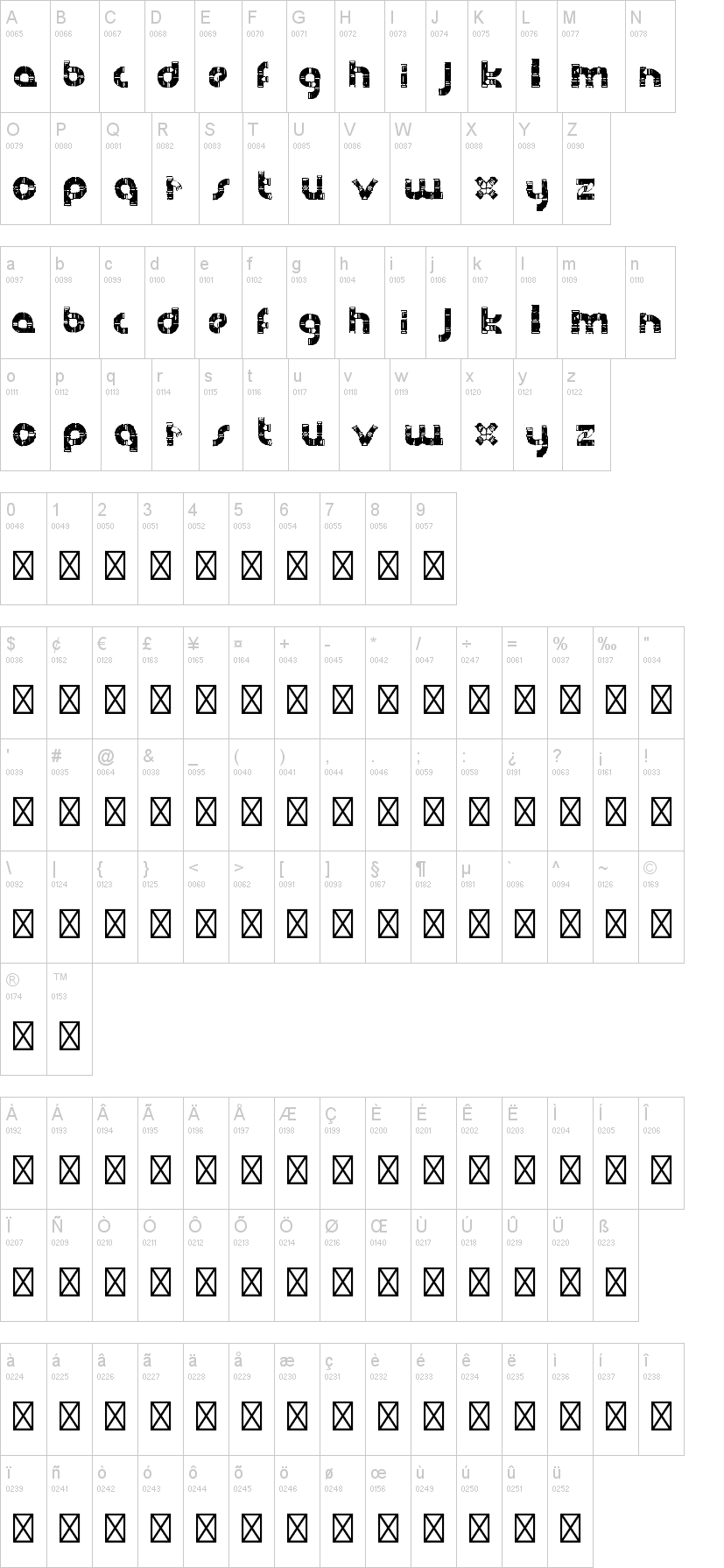
HanddrawnPipe-Regular.otfNote of the authorThis was based on the fire protection piping in a recently renovated building that was an original feature. There are a variety of businesses that occupy this modern space, from produce markets and Argentinian Barbecues to boutique fashion and technology workshops to fortune tellers. This eclectic bunch seemed to have only one thing in common which was the piping to the sprinkler system which ran though out the ceiling, weaving in and out of beams and lighting.
I liked the idea of combining the structure of the pipes which dictated lot of the logistics of the font with the looses of the hand drawn aspect. I also like the idea of only having a lower case font as this seemed to go against the rigidness that the pipe dictated. I hope you enjoy it